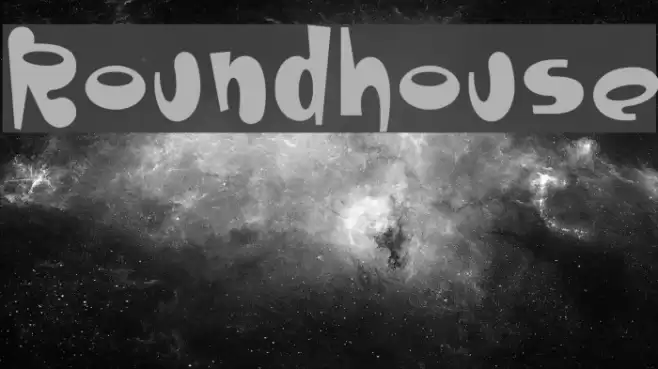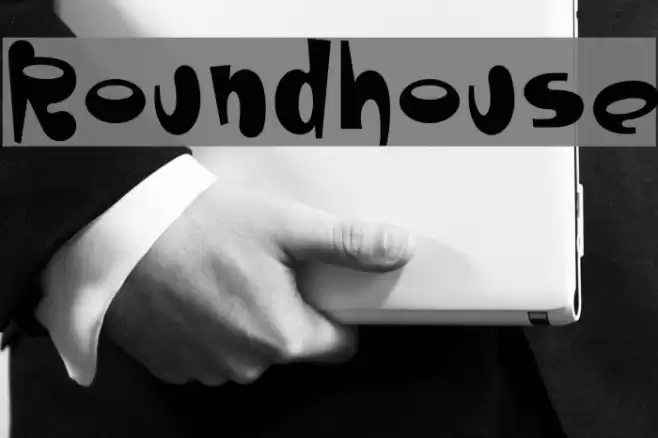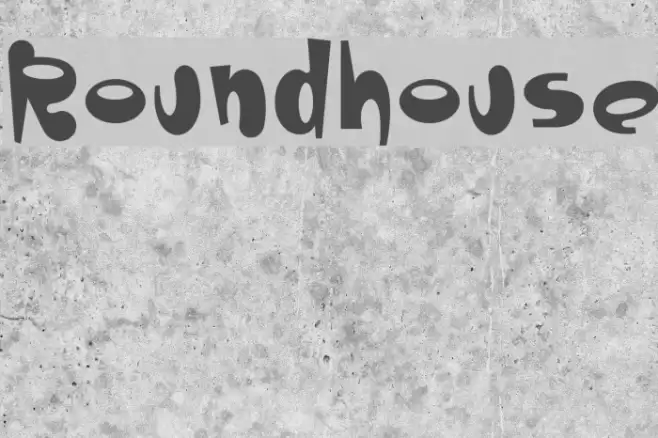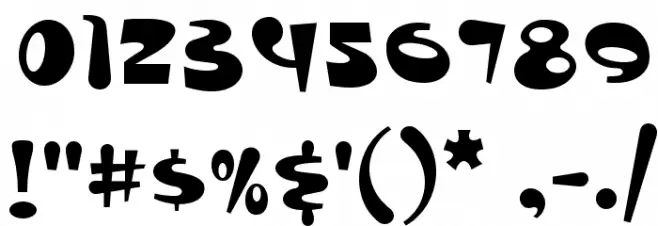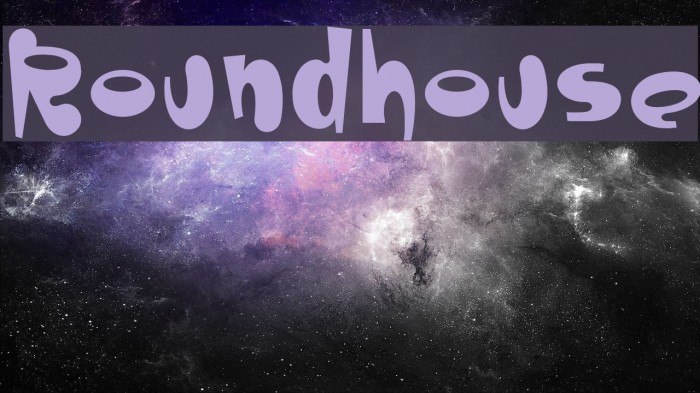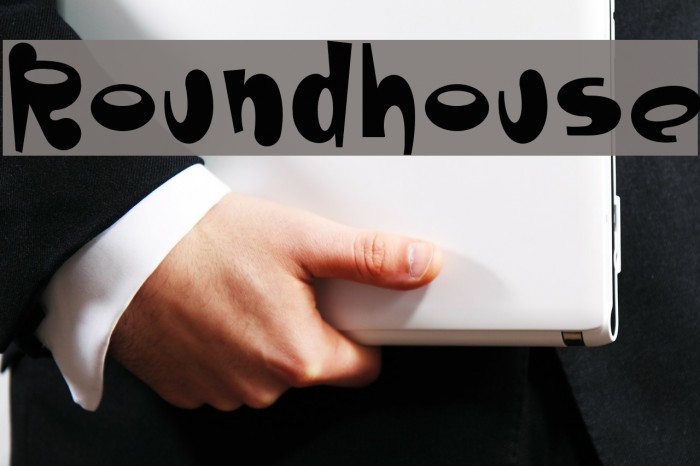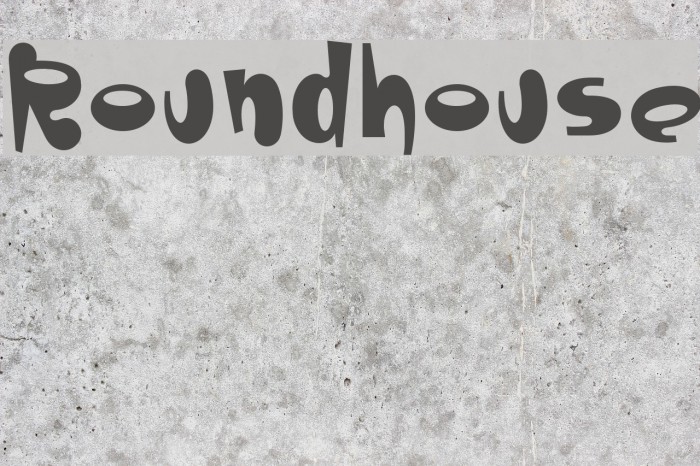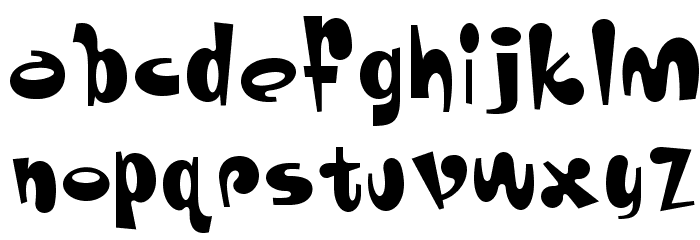
Roundhouse Font
Roundhouse Description
This playful and bold font features a whimsical, cartoon-like style with exaggerated curves and rounded edges. The characters are highly stylized, with a mix of thick and thin strokes that create a dynamic and lively appearance. The uppercase and lowercase letters maintain a consistent, quirky design, while the numbers and special characters complement the overall aesthetic. The font's unique personality makes it stand out, perfect for projects that require a fun and engaging visual element.
A playful, bold font with a whimsical, cartoon-like style from Basic fonts.
- Font: Roundhouse
by NicholasJudy456 - Weight: Medium